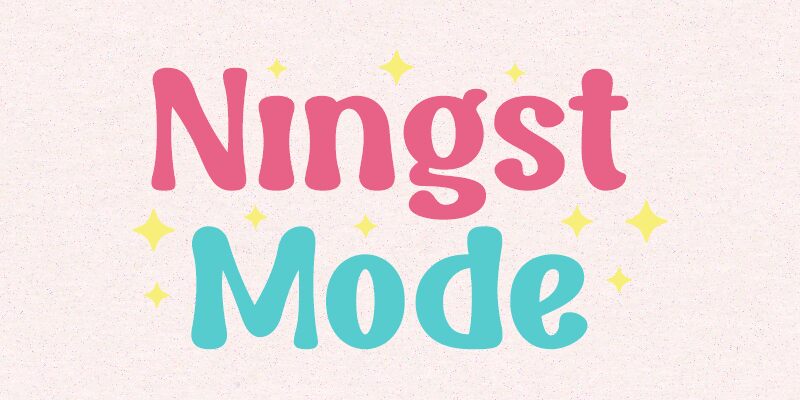
Ningst Mode is a bold retro display font designed by Nista Ningsih Nazara and Situjuh Nazara. It's the perfect choice for any project that needs a vintage look, such as poster designs, headlines and logos.